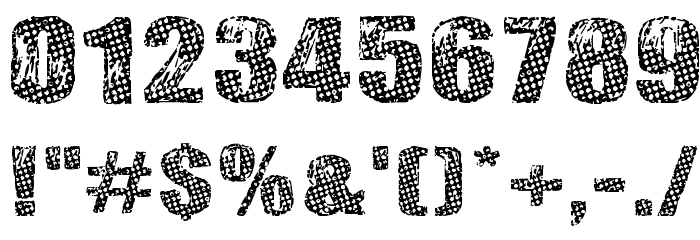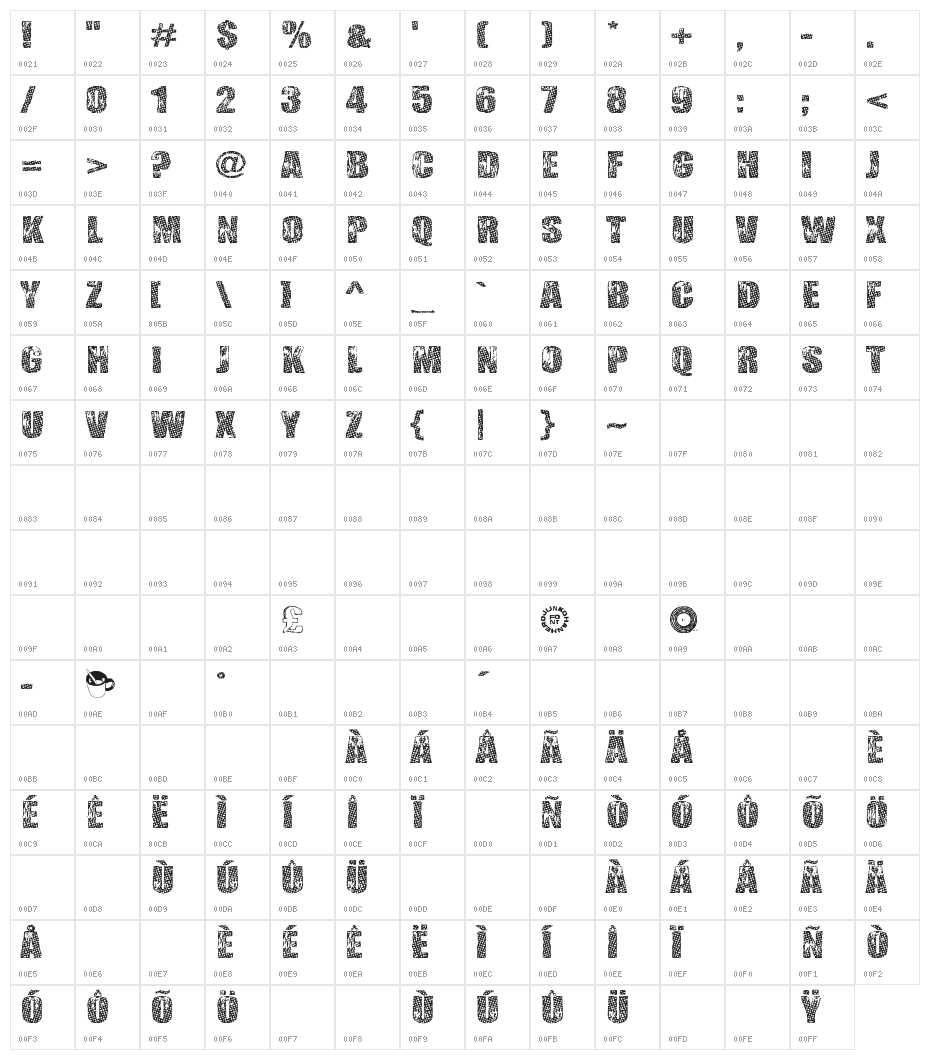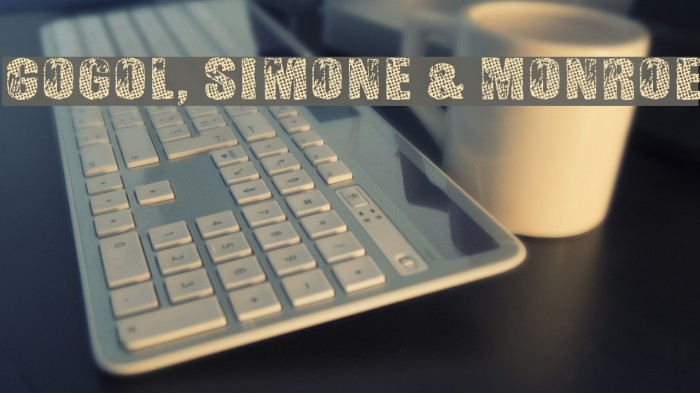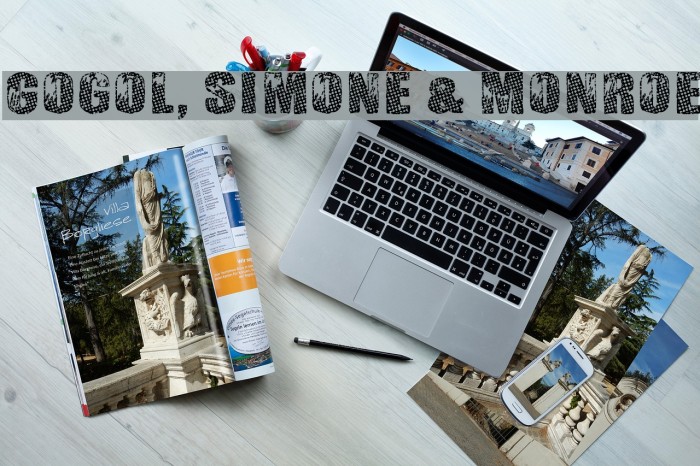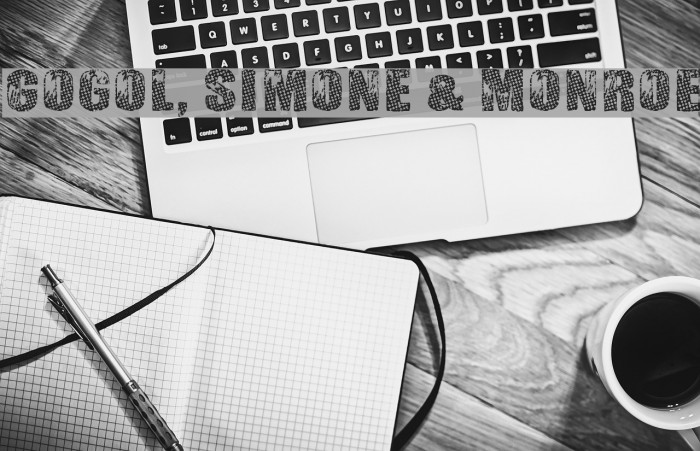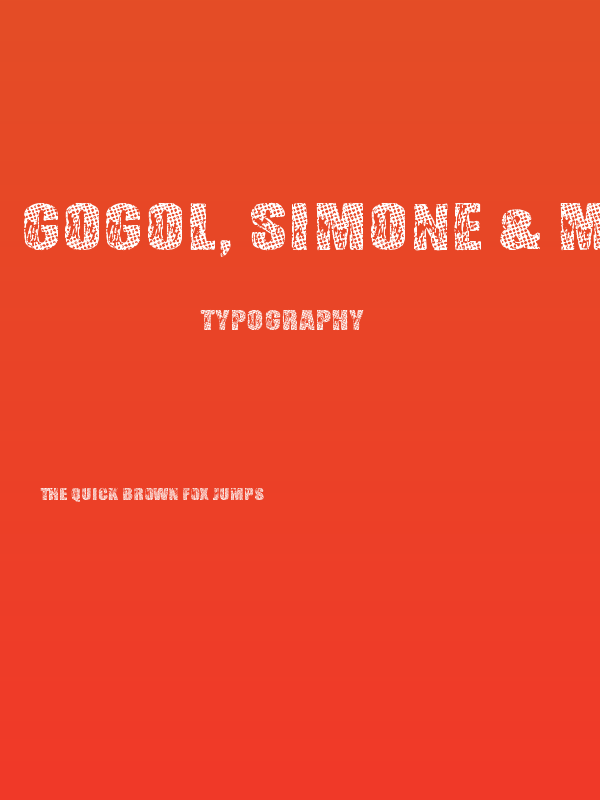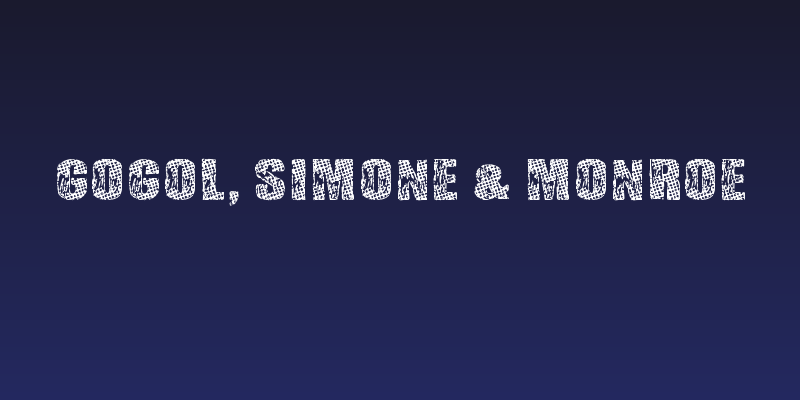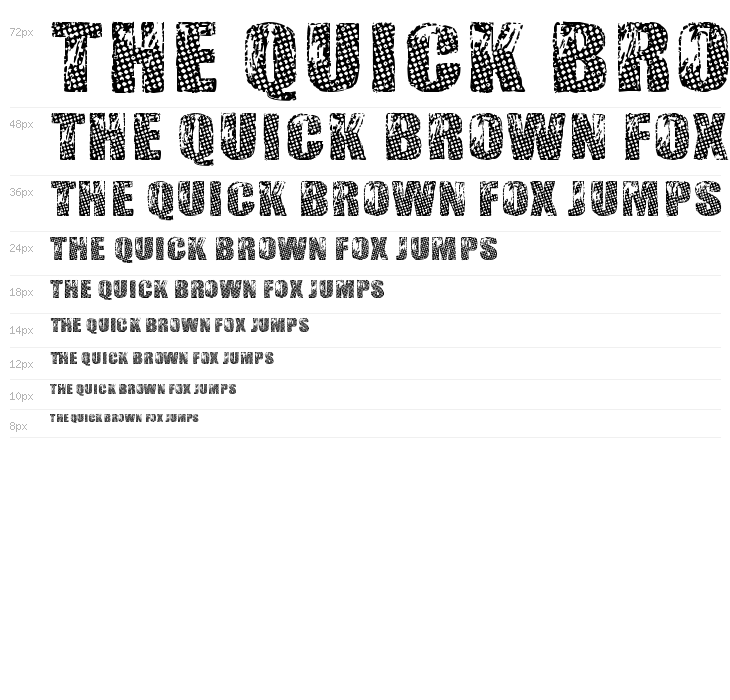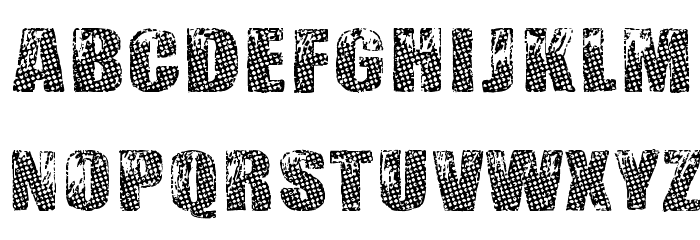
Gogol, Simone & Monroe Font
Gogol, Simone & Monroe Description
This font features a bold, textured style with a unique pattern reminiscent of a distressed or grunge aesthetic. Each character is filled with a dotted, irregular texture that gives it a dynamic and eye-catching appearance. The uppercase and lowercase letters maintain a consistent design, ensuring readability while adding a creative flair. The numbers and special characters follow the same pattern, making them suitable for various design needs. This font stands out with its decorative elements, making it ideal for projects that require a bold statement.
| Proposed Projects | Ideal for posters, album covers, branding, and any project needing a bold, artistic touch. |